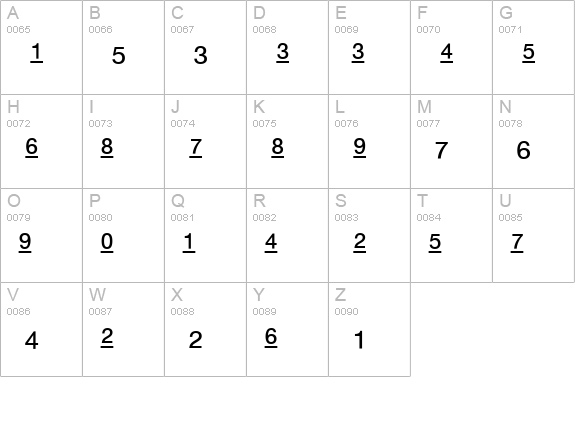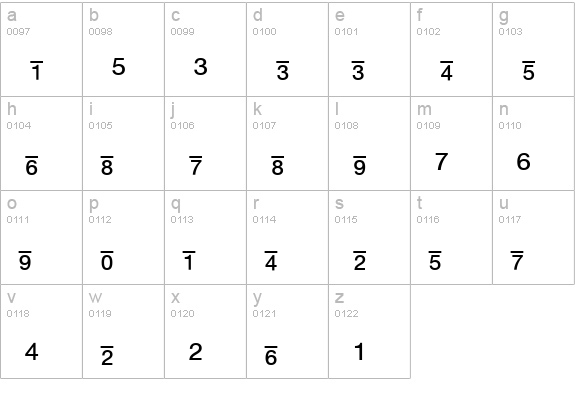
Context Fractions SSi Fractions Font Details
The Context Fractions SSi Fractions font is a versatile and elegant typeface designed specifically for working with fractions in mathematical and typographical contexts. Its clean lines and precise design make it the perfect choice for creating clear and professional-looking fractions in any document or project. This font is not only functional but also visually appealing, with its modern and sophisticated aesthetic adding a touch of style to any text it is used in. Whether you are working on a scientific paper, a textbook, or a design project that requires precise fraction formatting, the Context Fractions SSi Fractions font is sure to meet your needs. Best of all, this font is available for free download at FontsMarket.com, making it easily accessible to anyone who wishes to use it in their work. Don't miss out on the opportunity to enhance your typography with this high-quality and user-friendly font – download Context Fractions SSi Fractions today!